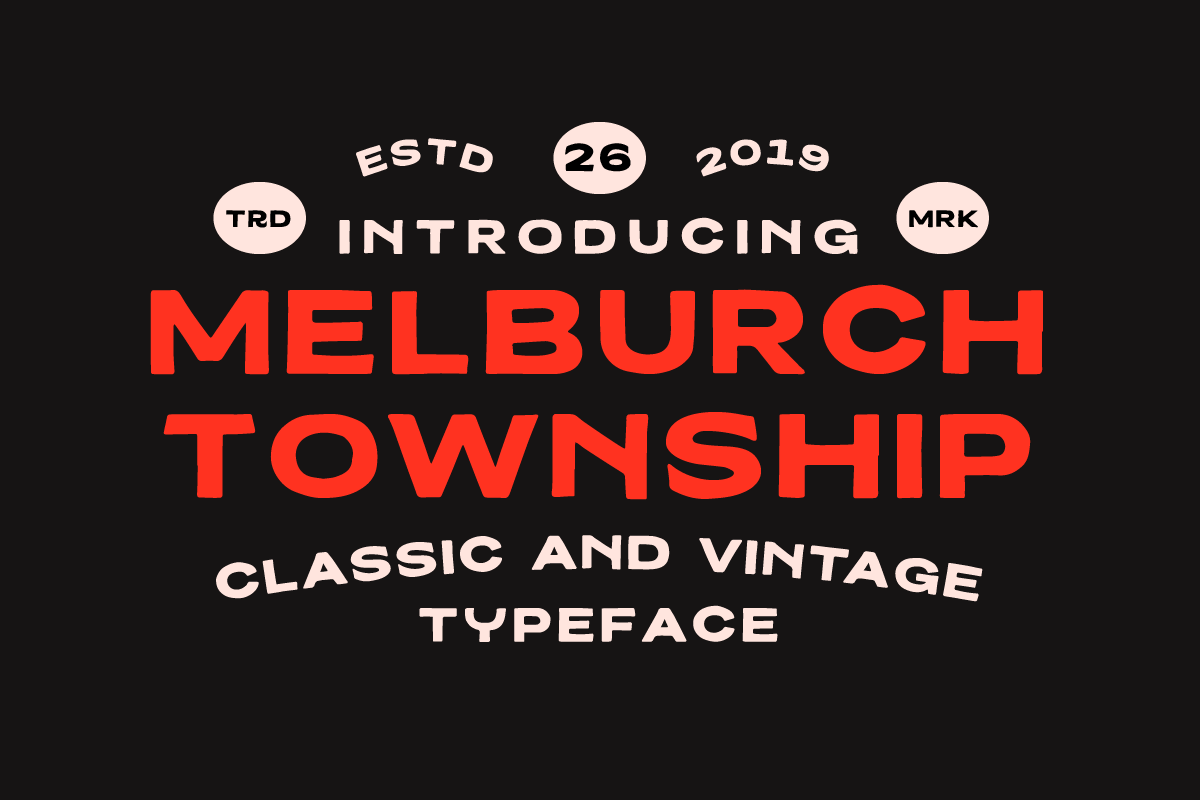
Melburch Township Typeface Free Download
Please note, you must purchase this font for commercial use. However, you can easily download Melburch Township Typeface Free Download for personal use and testing purposes. Melburch Township Typeface is a bold and stylish font designed to give your projects a strong, professional presence. Perfect for logos, branding, posters, and editorial designs, this font combines modern and classic elements for a versatile and sophisticated look. Its clean lines and distinctive letterforms make it ideal for a wide range of applications, from high-end brands to creative campaigns. Whether you're designing for a contemporary logo or a stylish marketing piece, Melburch Township Typeface Free Download will add elegance and strength to your typography. Download Melburch Township Typeface Free Download today and explore its potential before opting for a commercial license.